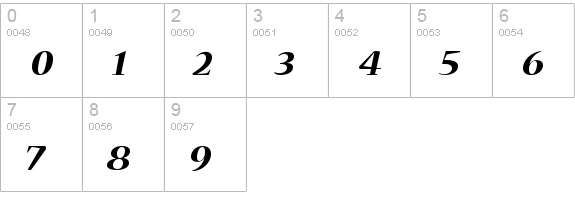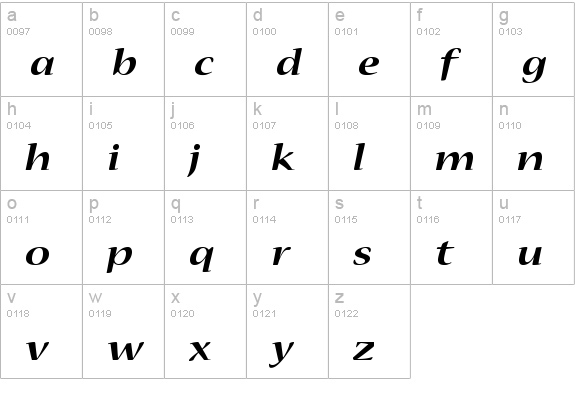
Nueva Std Bold Extended Italic Font Details
Nueva Std Bold Extended Italic is a strong, high-contrast, extended-width, italic variant in the Nueva typeface family \xE2\x80\x94 well suited to headlines, attention-grabbing titles, and strong calls-to-action.
Nueva Std Bold Extended Italic font exudes a sense of bold sophistication and modern elegance. Its sleek lines and sharp angles make it a standout choice for adding a touch of flair to your design projects. The extended italic style adds a dynamic and dramatic element, perfect for making a statement. This font is not only visually striking but also versatile, suitable for a wide range of design applications from branding to editorial design. Whether you're looking to create eye-catching headlines or stylish typography, Nueva Std Bold Extended Italic font is sure to impress. Best of all, this font is available for free download at FontsMarket.com, making it easily accessible for designers looking to elevate their projects with a touch of bold style. Don't miss out on the opportunity to add this stunning font to your collection today!